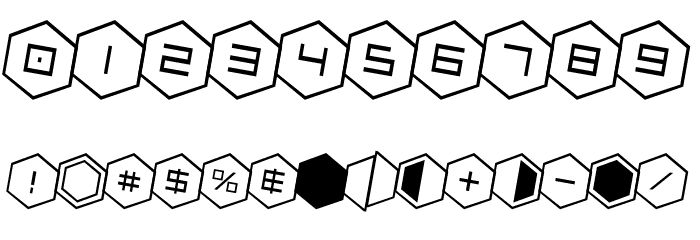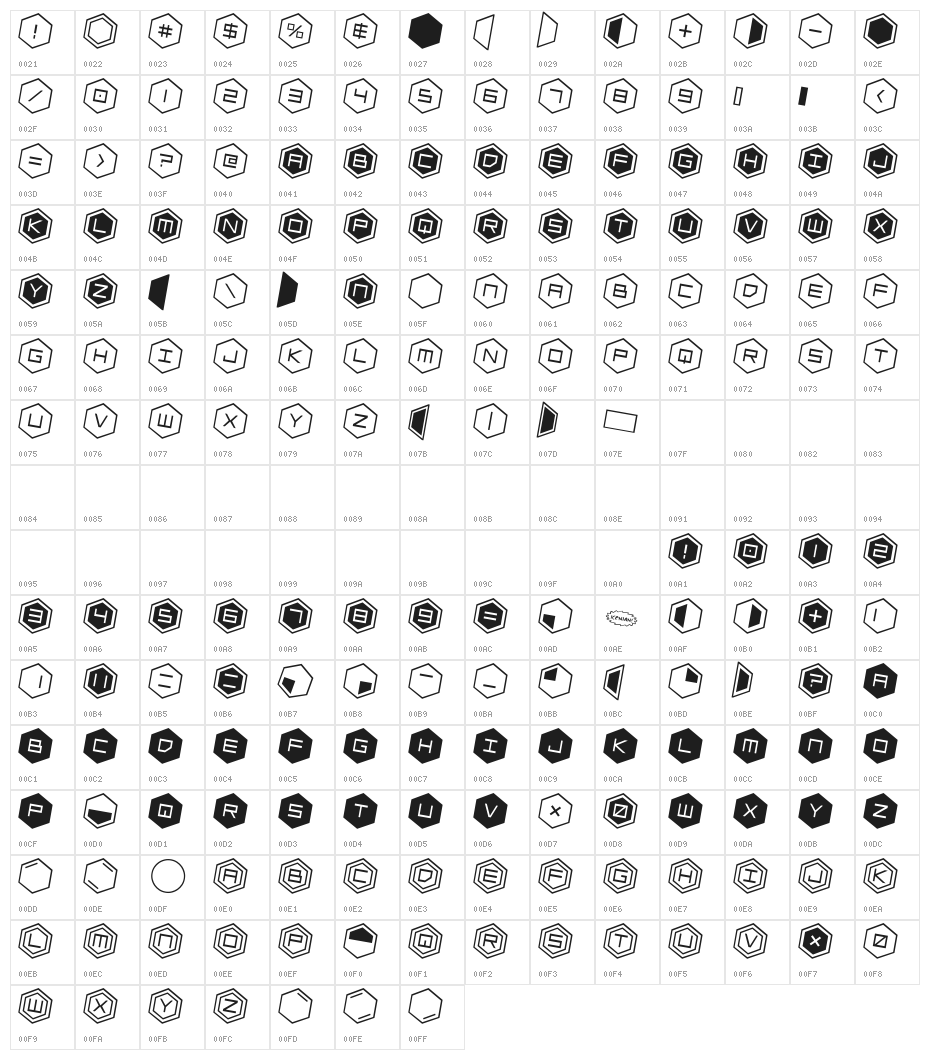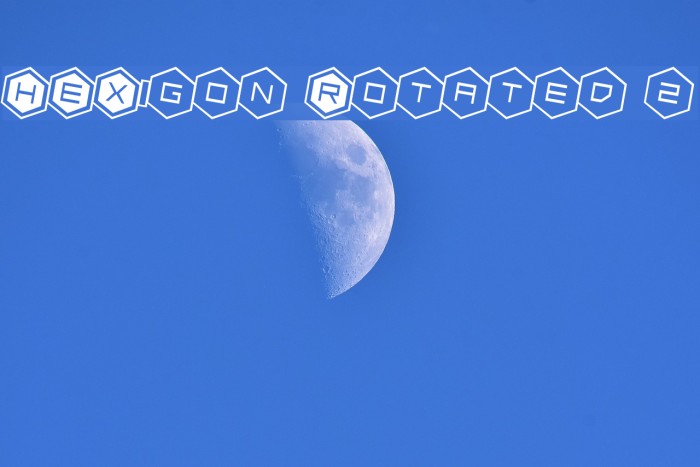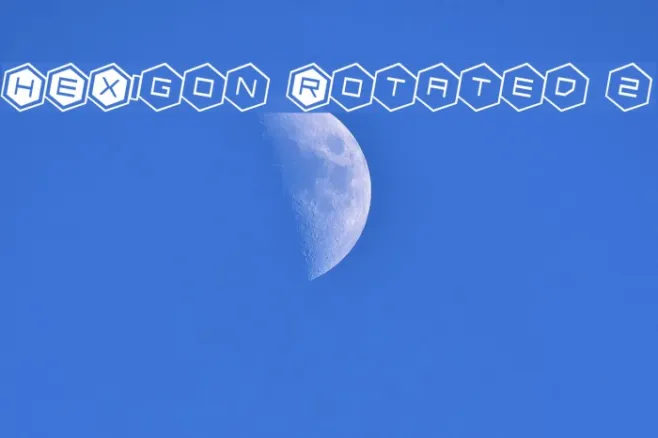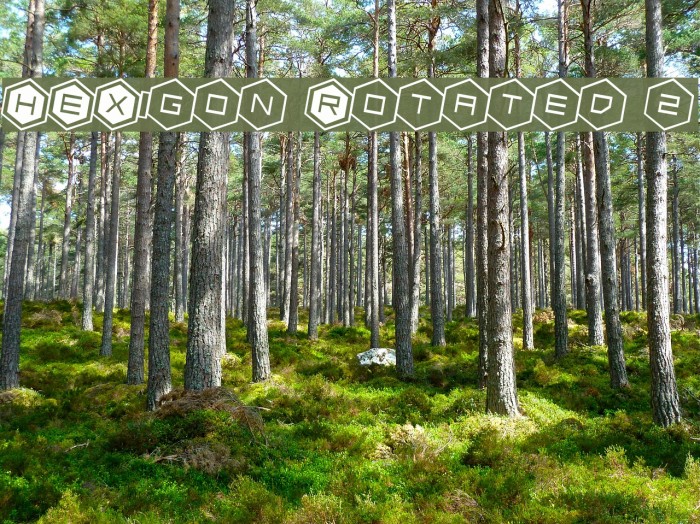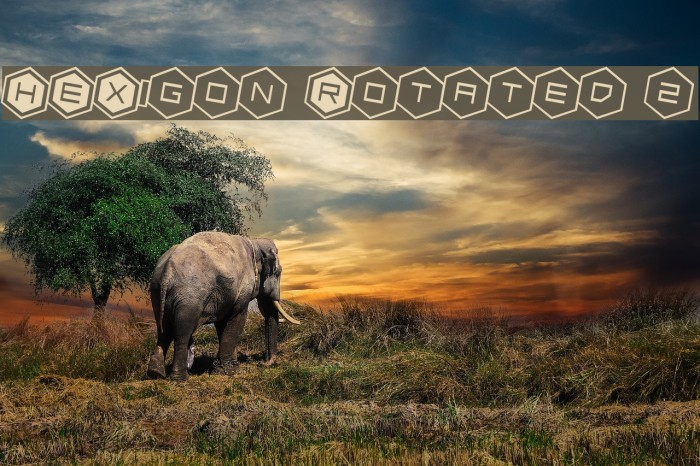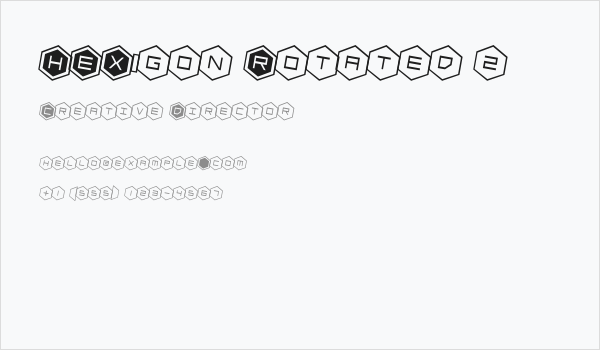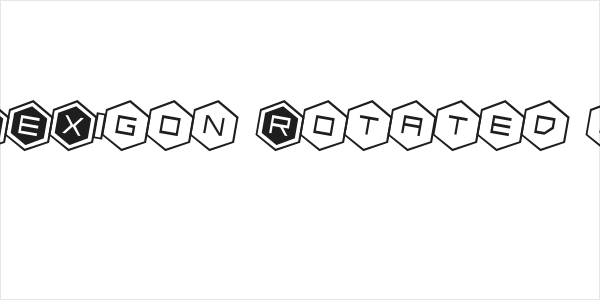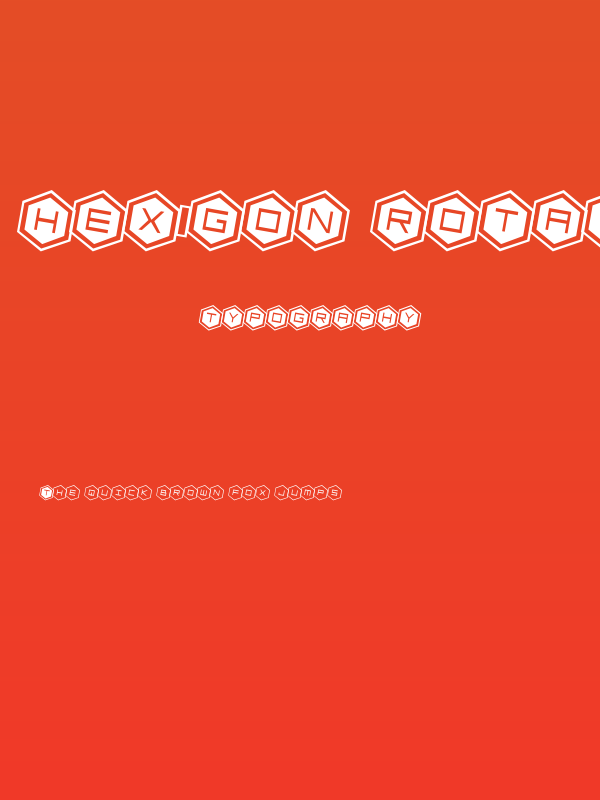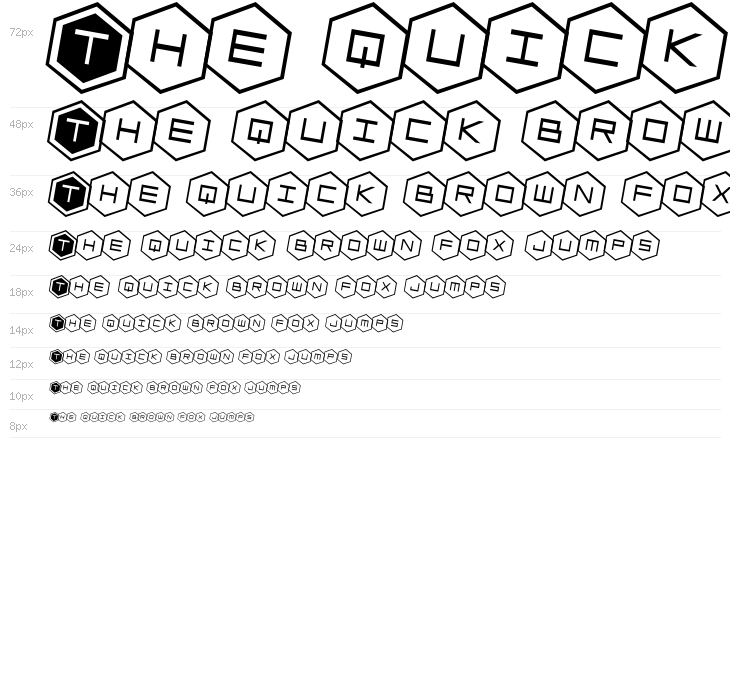
HEX:gon Rotated 2 Font
HEX:gon Rotated 2 Description
This font features a unique design where each character is enclosed within a hexagonal shape, giving it a distinct geometric and modern appearance. The uppercase letters, lowercase letters, numbers, and special characters are all presented in this hexagonal format, creating a cohesive and visually striking look. The characters themselves are bold and sans-serif, with clean lines and a uniform thickness that enhances readability. The hexagonal borders add an extra layer of dimension and interest, making this font suitable for creative and decorative purposes.